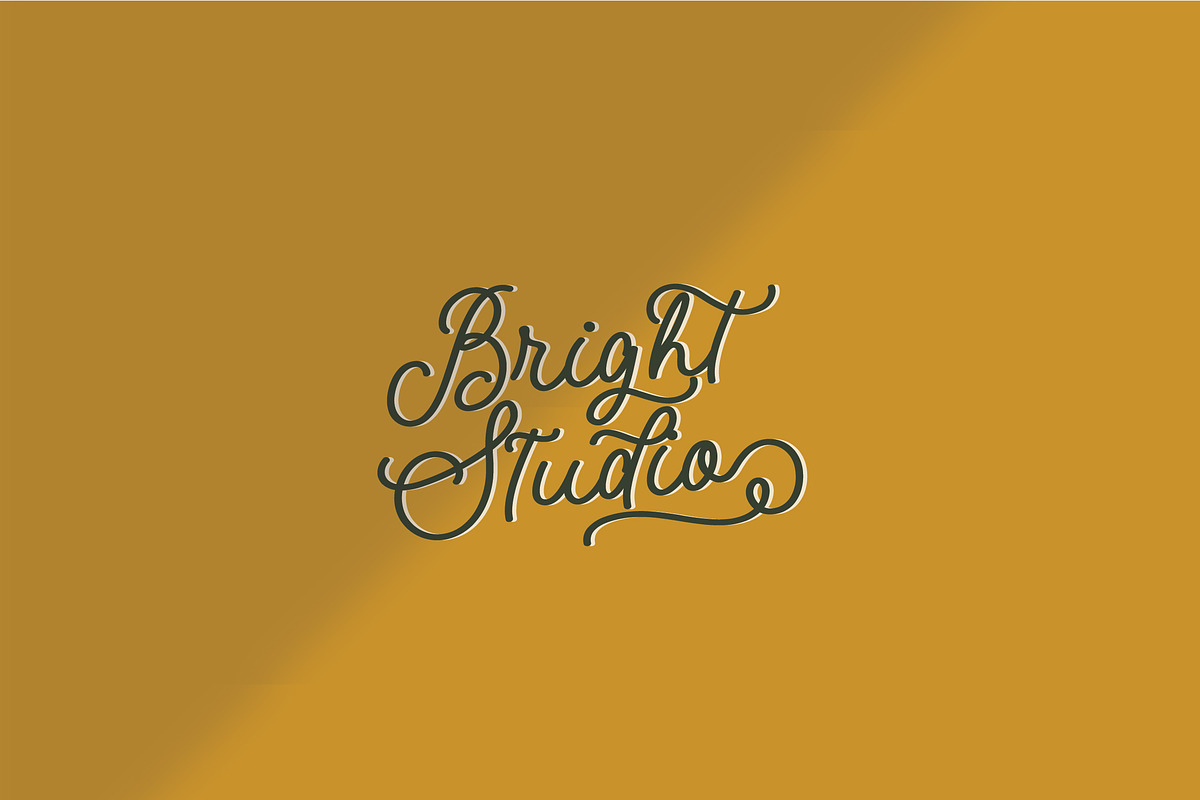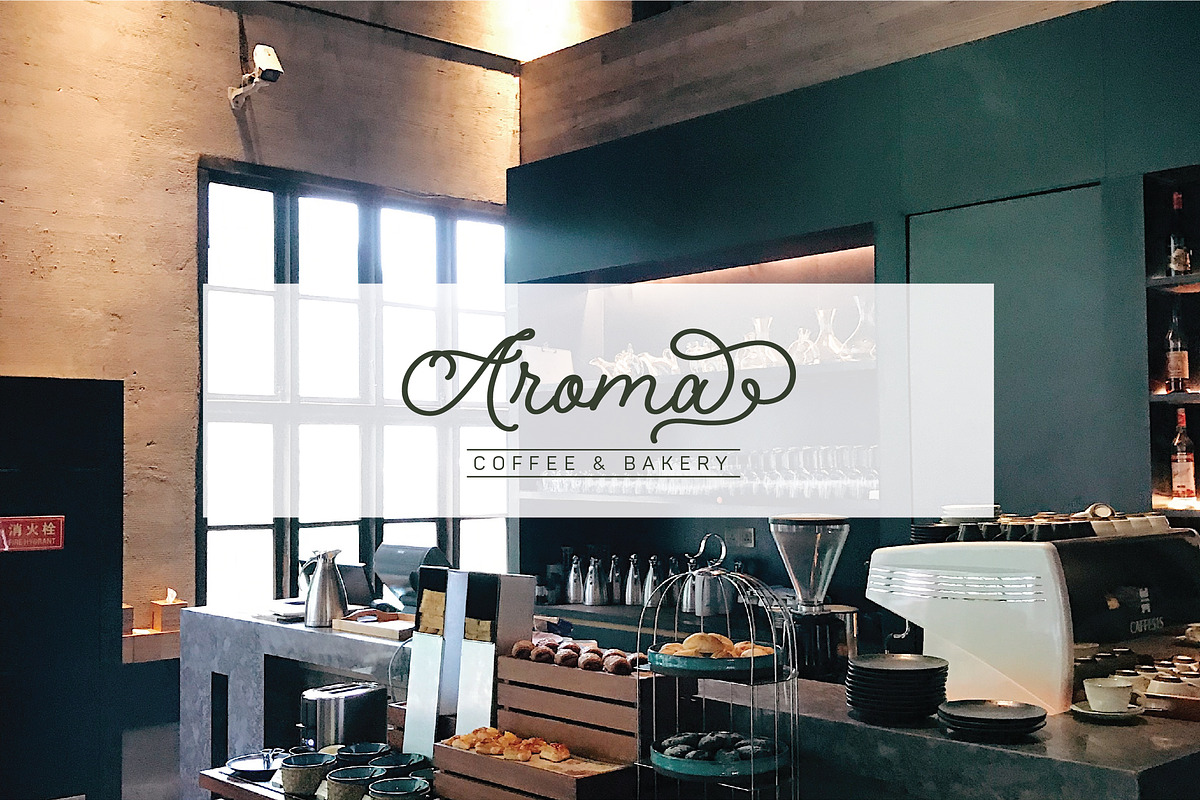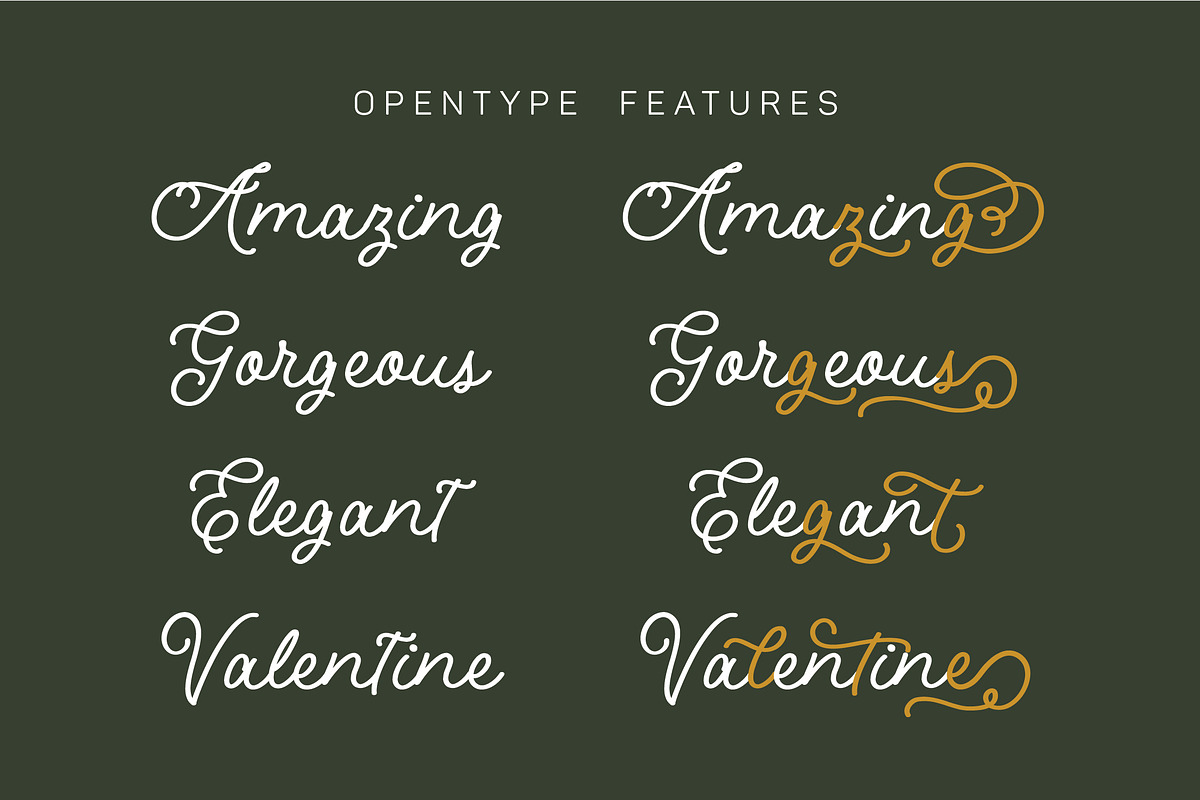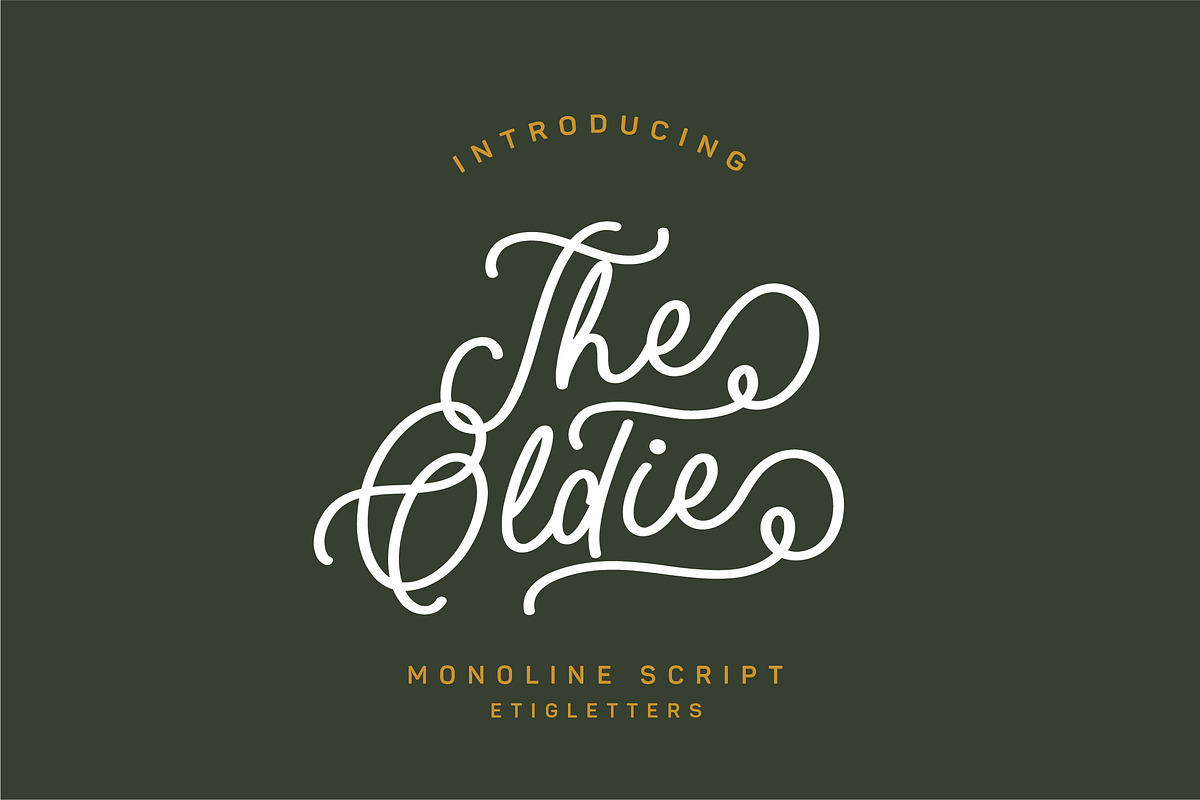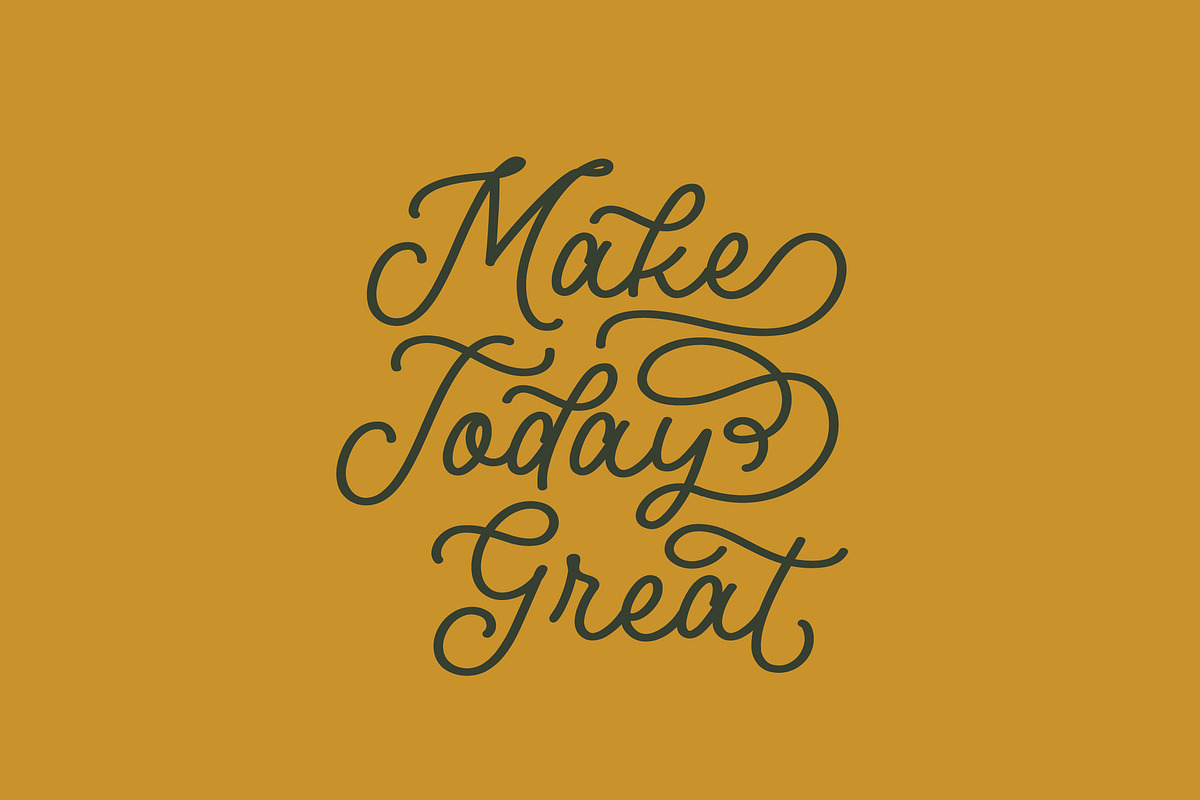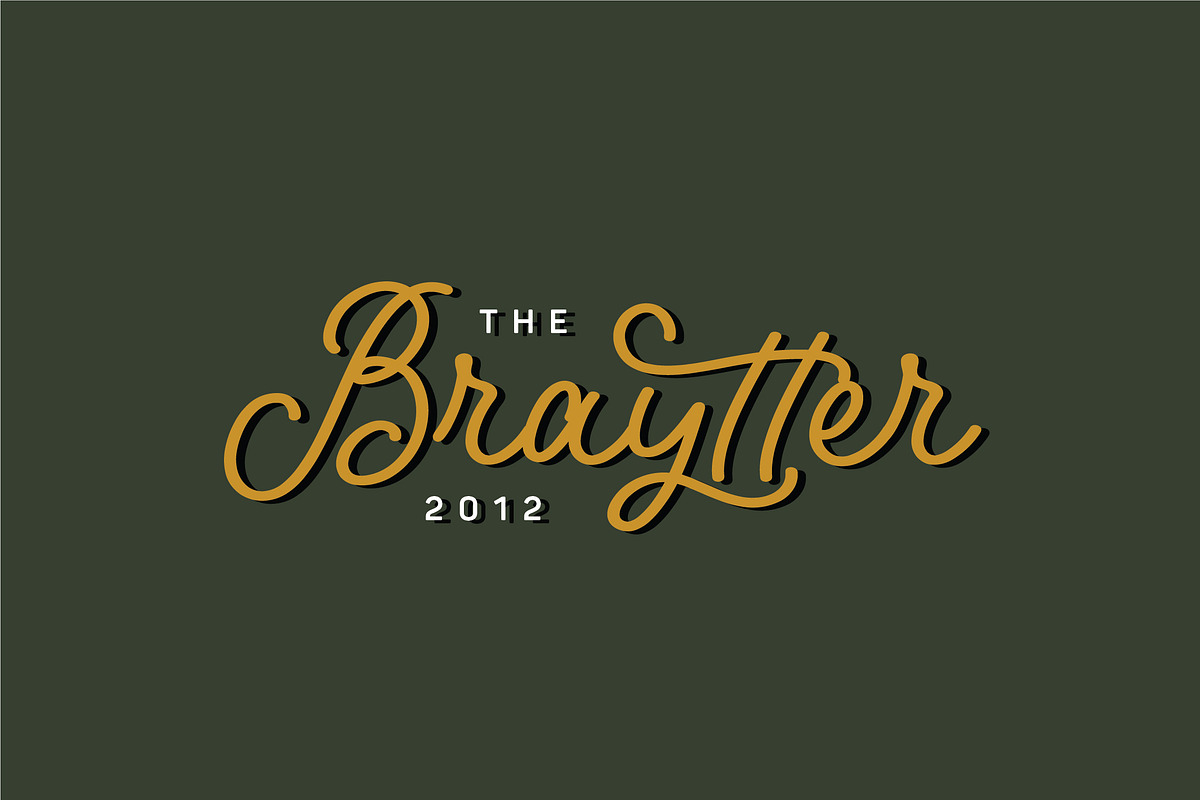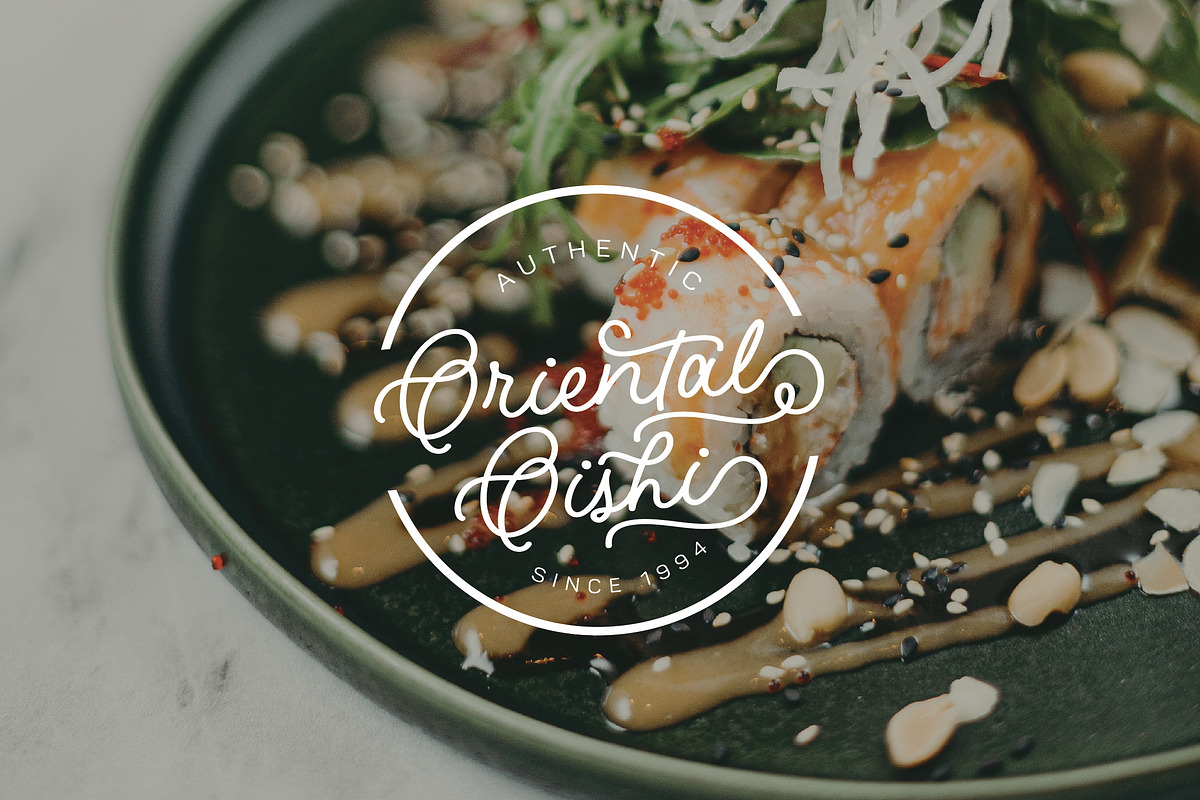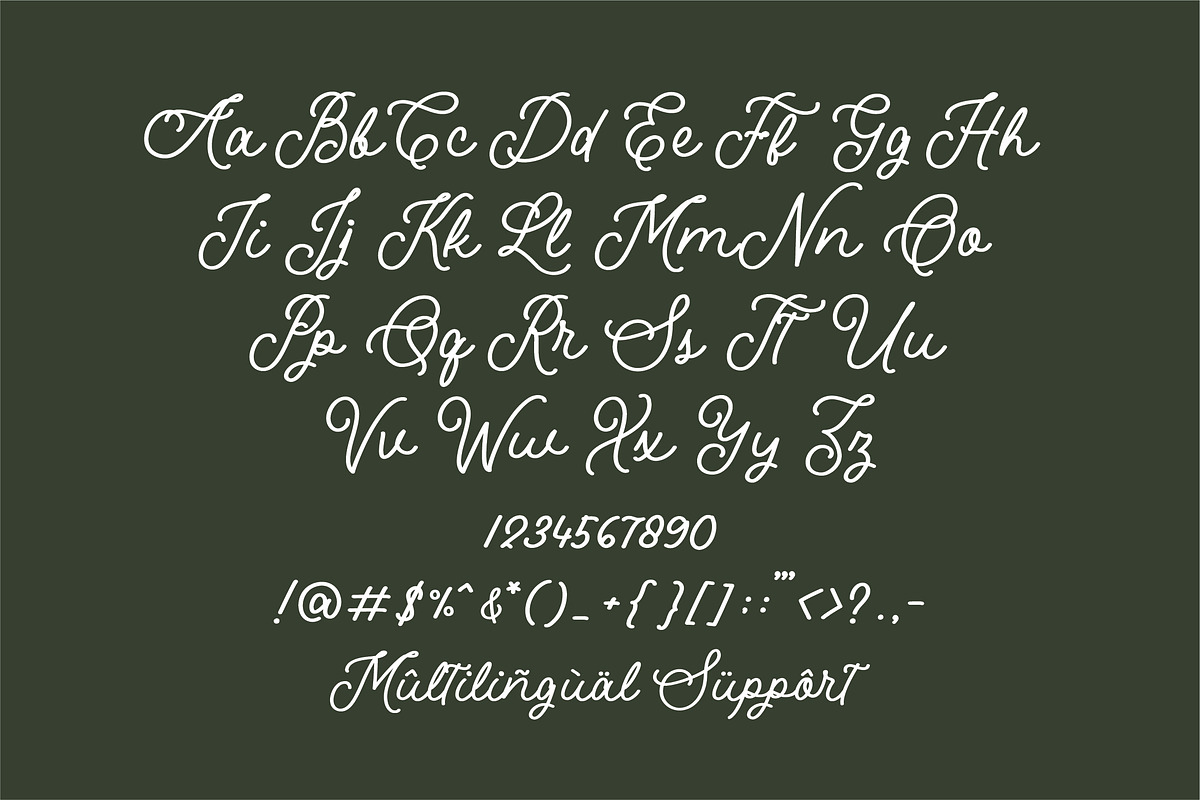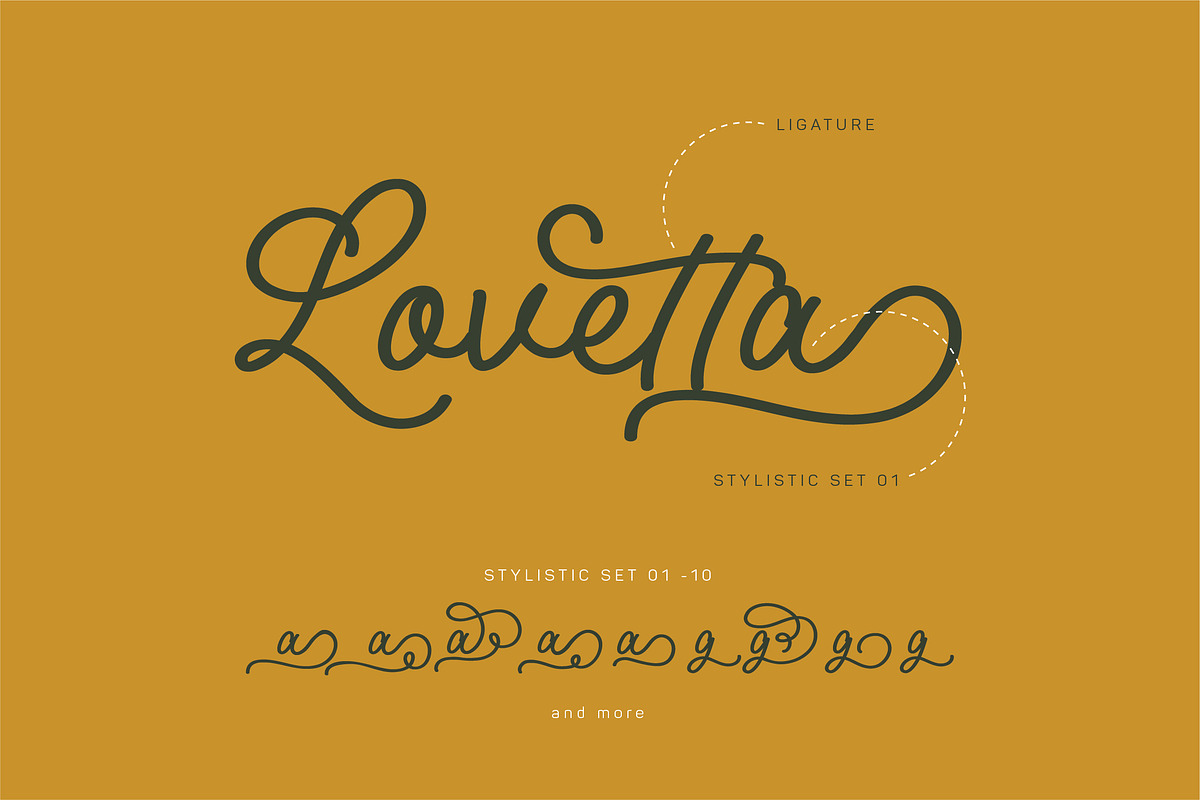
The Oldie Monoline Script
Introducing The Oldie font is a handwriting font with old vintage look and mono line flourishing character. The Oldie can be used for various types of design needs such as branding materials, social media, quotes, and more.
The Oldie also includes a full set of gorgeous uppercase and lowercase letters, numerals, punctuations, and ligatures. This font also suitable to be combined with sans serif that will make your design more perfect. The Oldie is also support multilingual and already PUA Encoded!